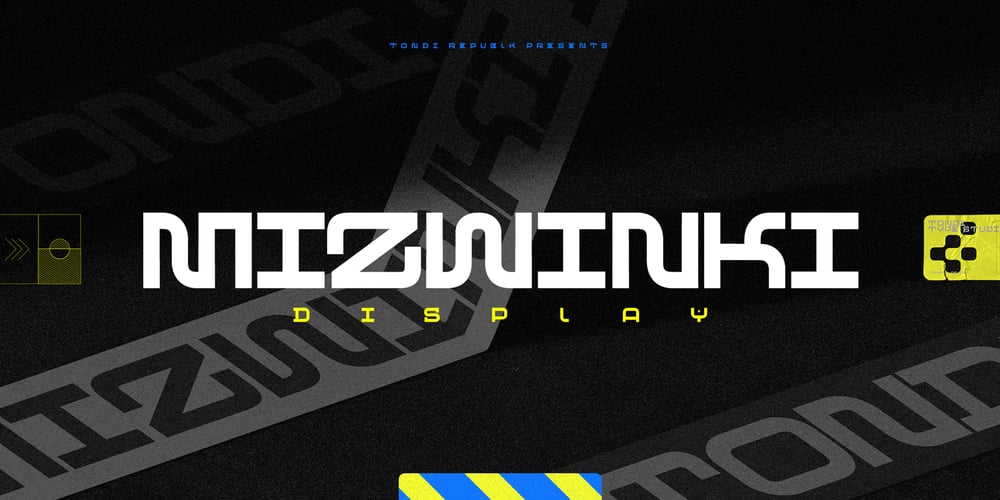
Mizwinki Display
Mizwinki Display font
Mizwinki Display Font Family was designed by Fhumulani Nemulodi and published by Tondi Type Studio. Mizwinki Display contains 3 styles and family package options. Mizwinki Display is an all caps sans serif font family that seamlessly blends organic elegance with ornate industrial precission reminiscent of the Art Deco period. The typeface has organic forms that give it a clean decorative and somewhat oriental appeal.This trendsetting trio consists of three font styles, all denoted as MD (Mizwinki Display): MD-Base: This style forms the foundation of the font family, featuring smooth stems and geometric terminals. It blends organic and industrial designs, with letterforms like E, F, W, N, and M crafted from continuous flowing geometry. MD-Ink: Building upon MD-Base, this style introduces spurs and slits, evoking the ornate look synonymous with classic tattoo art letterforms. MD-InkLine: A unique offshoot of MD-Ink, this style features an inline aesthetic that enhances the ornate appeal. Tighter spacing between letterforms allows the glyphs to blend into each other while maintaining legibility within the inline letter silhouettes. Ideal for logos, headlines, packaging, digital ephemera, and apparel, Mizwinki Display is versatile. Despite being a display font, it works well at smaller sizes and is suitable for low-count body copy. Technical Specs: _____________________________________________________3 Font Styles / 12 Open Type Features / Extended Latin Character set (Basic Latin; Western, Central and South Eastern European Latin) / Currency Symbols / Punctuation and Parenthesis / Arrows / Basic Mathematical Symbols / Special Symbols / Basic Numerals / Circled Numerals / Numerators and Denominators / Table Figures / Inferiors and Superiors & FractionsSupport for 112 Languages: _____________________________________________________Afrikaans / Akan / Albanian / Asturian / Asu / Bafia / Basque / Bemba / Bena / Breton / Catalan / Chiga / Colognian / Cornish / Croatian / Czech / Danish / Duala / Dutch / Embu / English / Estonian / Ewe / Faroese / Filipino / Finnish / French / Friulian / Fulah / Galician / Ganda / German / Gusii / Hungarian / Icelandic / Igbo / Inari Sami / Indonesian / Irish / Italian / Jola-Fonyi / Kabuverdianu / Kalenjin / Kamba / Kikuyu / Kinyarwanda / Koyraboro Senni / Koyra Chiini / Langi / Latvian / Lingala / Lithuanian / Lower Sorbian / Luba-Katanga / Luo / Luxembourgish / Luyia / Machame / Makhuwa-Meetto / Makonde / Malagasy / Maltese / Manx / Masai / Meru / Metaʼ / Morisyen / Northern Sami / North Ndebele / Norwegian Bokmål / Norwegian Nynorsk / Nuer / Nyankole / Oromo / Polish / Portuguese / Quechua / Romanian / Romansh / Rombo / Rundi / Rwa / Samburu / Sango / Scottish Gaelic / Sena / Serbian / Shambala / Shona / Slovak / Soga / Somali / Spanish / Swahili / Swedish / Swiss German / Taita / Tasawaq / Teso / Turkish / Upper Sorbian / Uzbek (Latin) / Vai / Volapük / Vunjo / Walser / Welsh / Western Frisian / Yoruba / Zarma / Zulu